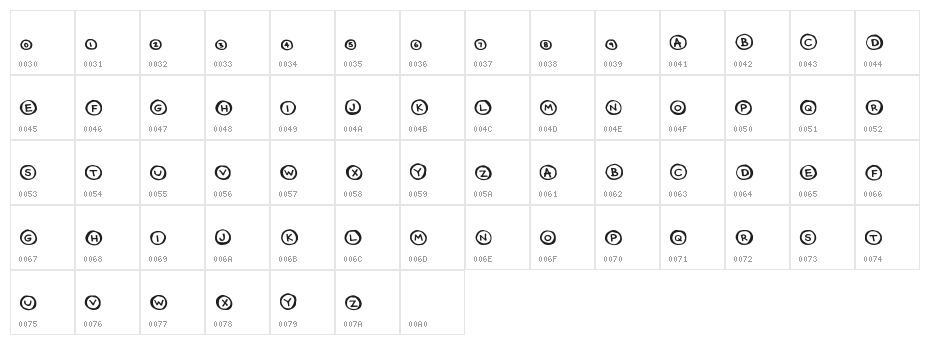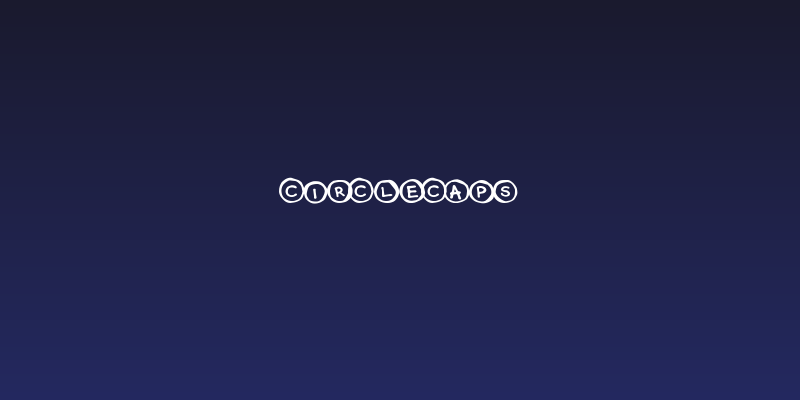
CircleCaps Font
CircleCaps Description
This playful and bold font features uppercase letters enclosed in thick, hand-drawn circles, giving it a distinctive and whimsical appearance. The characters are evenly spaced within their circular borders, creating a uniform and cohesive look. The font's style is reminiscent of doodles or comic book lettering, making it ideal for projects that require a fun and informal touch. Its boldness ensures high visibility, while the circular design adds a unique flair. The numbers and special characters maintain the same circular theme, ensuring consistency across all elements.
| Overall Style | Playful, Whimsical |
| Proposed Projects | Ideal for children's books, comic strips, playful branding, and party invitations. |